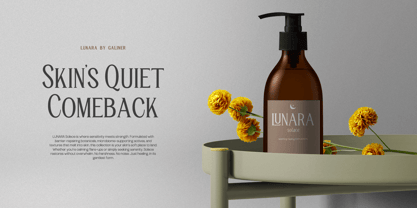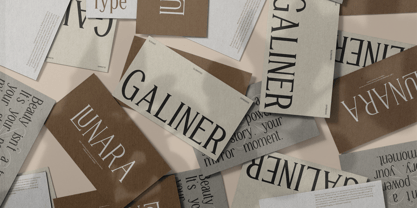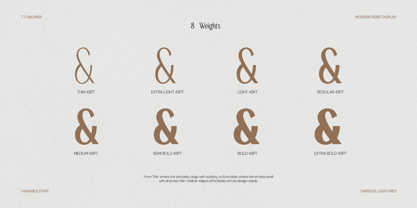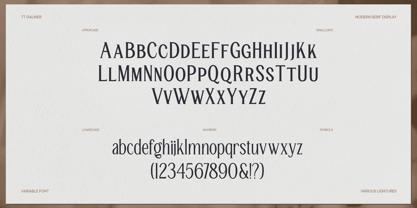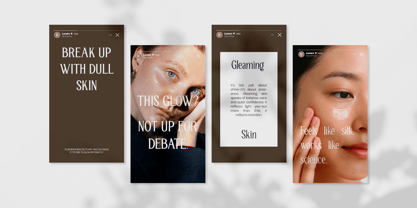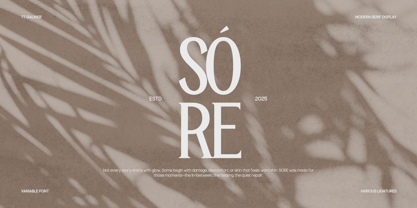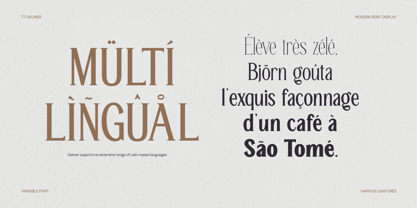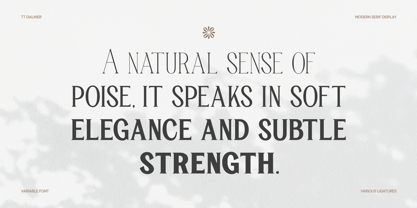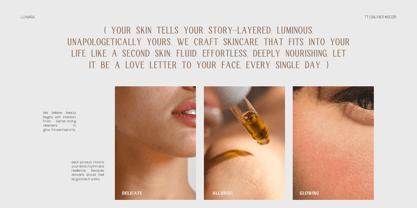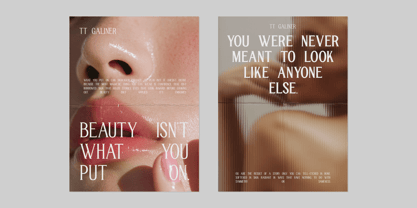
TRT Manique
by True Type Lab
The TRT Manique Font Family was designed by Yusilo Oktaprima Ardani and published by True Type Lab. TRT Manique contains 8 styles and family package options.
TRT Manique is a modern serif typeface that blends timeless elegance with subtle contemporary details. Designed to offer both sophistication and readability, TRT Manique features support for small caps and clean, well-structured letterforms — making it a versatile choice for refined and professional design work. With its distinctive serifs, balanced contrast, and graceful curves,TRT Manique performs beautifully in both large display sizes and extended text settings. Whether you’re crafting editorials, branding systems, or packaging, this typeface brings a sense of intelligence and poise to your typography. TRT Manique communicates with clarity and charm — a typeface that feels polished yet personable. It’s a flexible tool for designers who seek strong structure without sacrificing personality. At True Type, we create fonts that are both expressive and functional, designed to help your message resonate with style and confidence. Have questions? We're here to help. Explore our full collection and find the type that speaks your visual language.